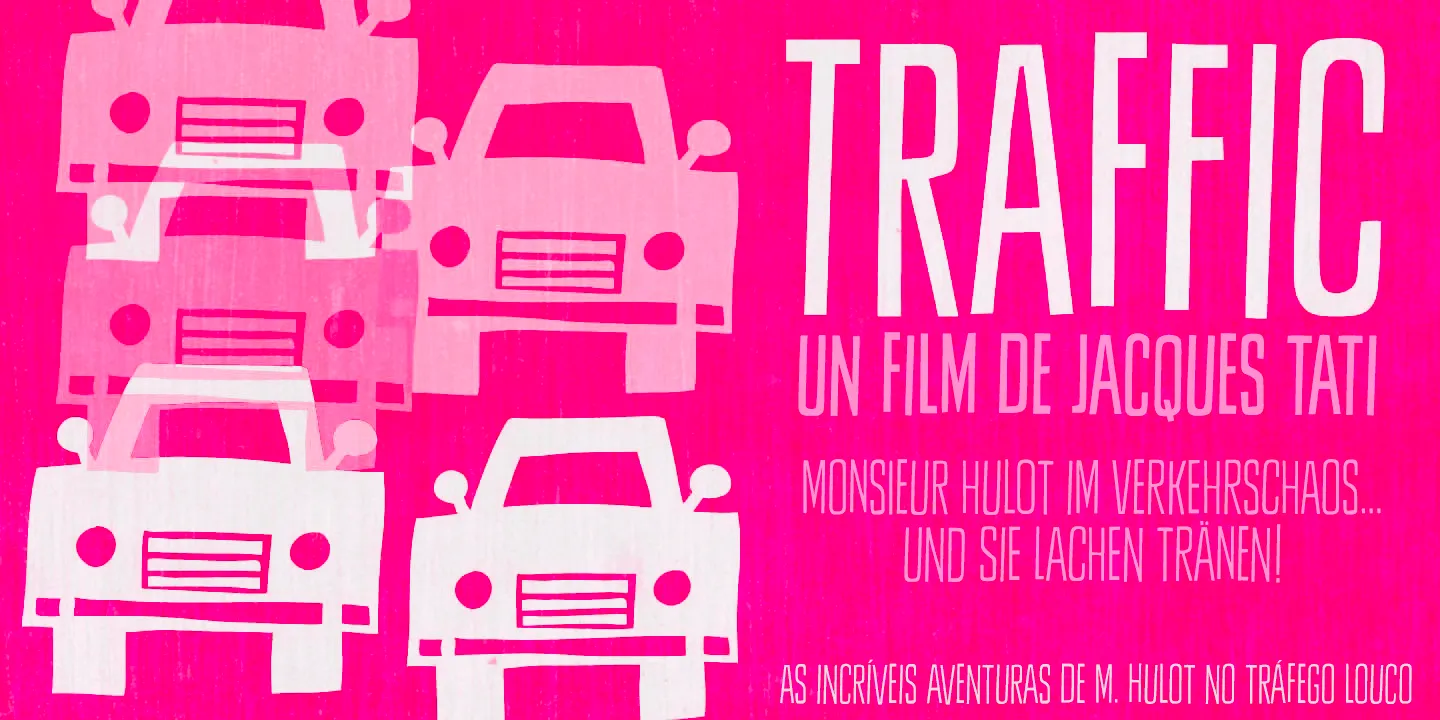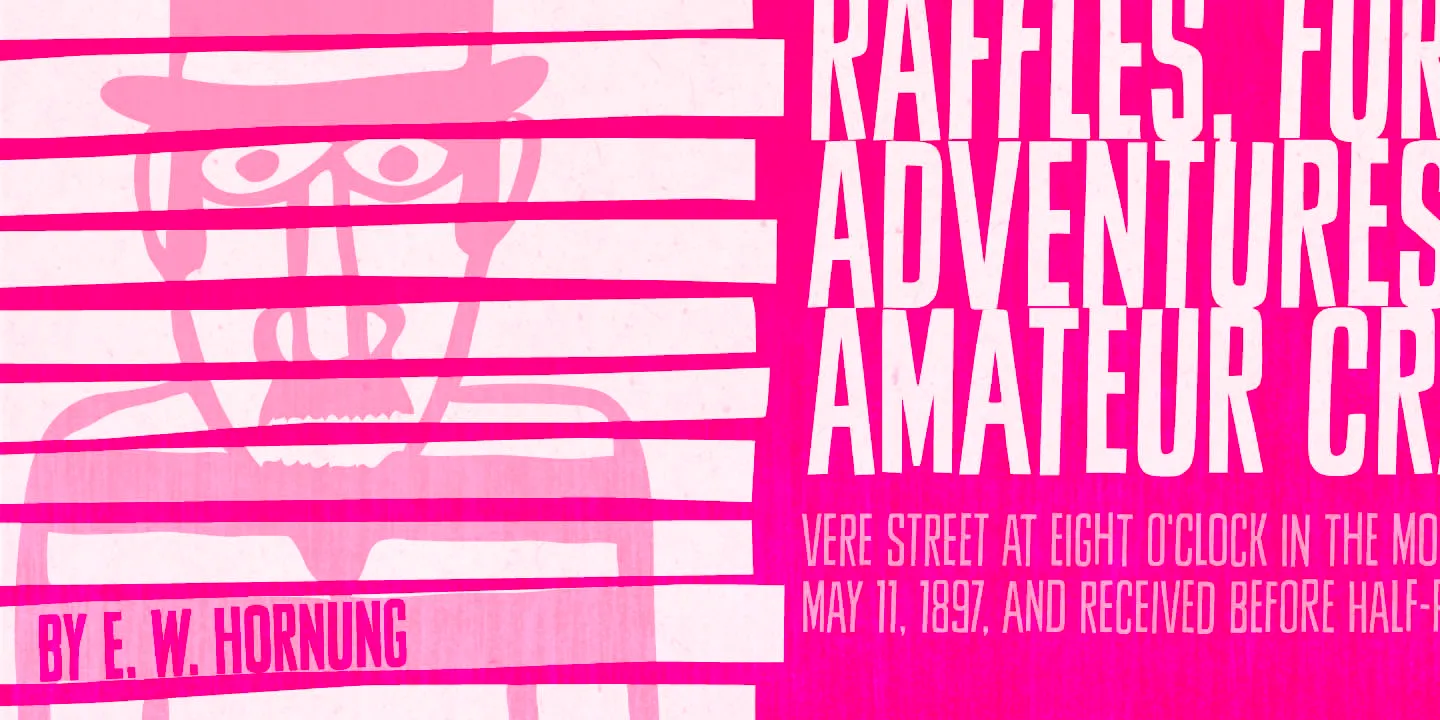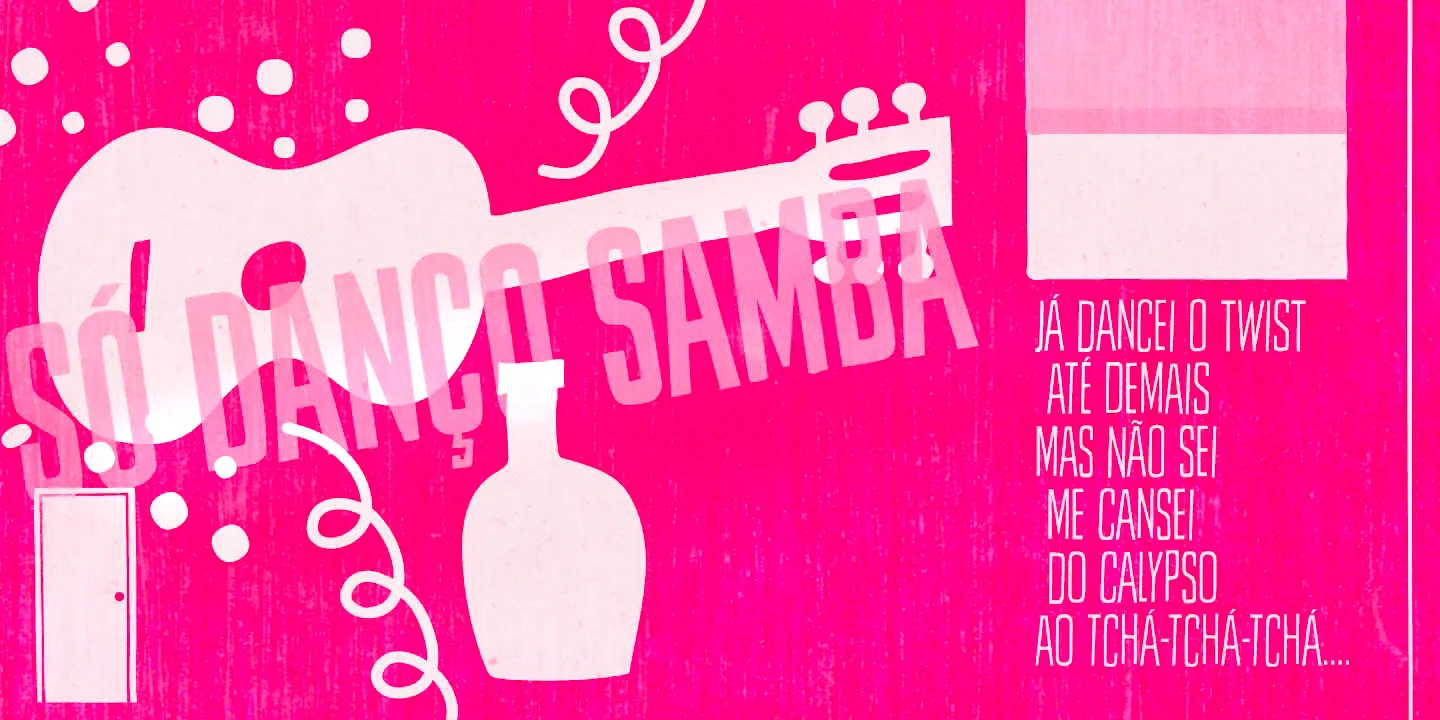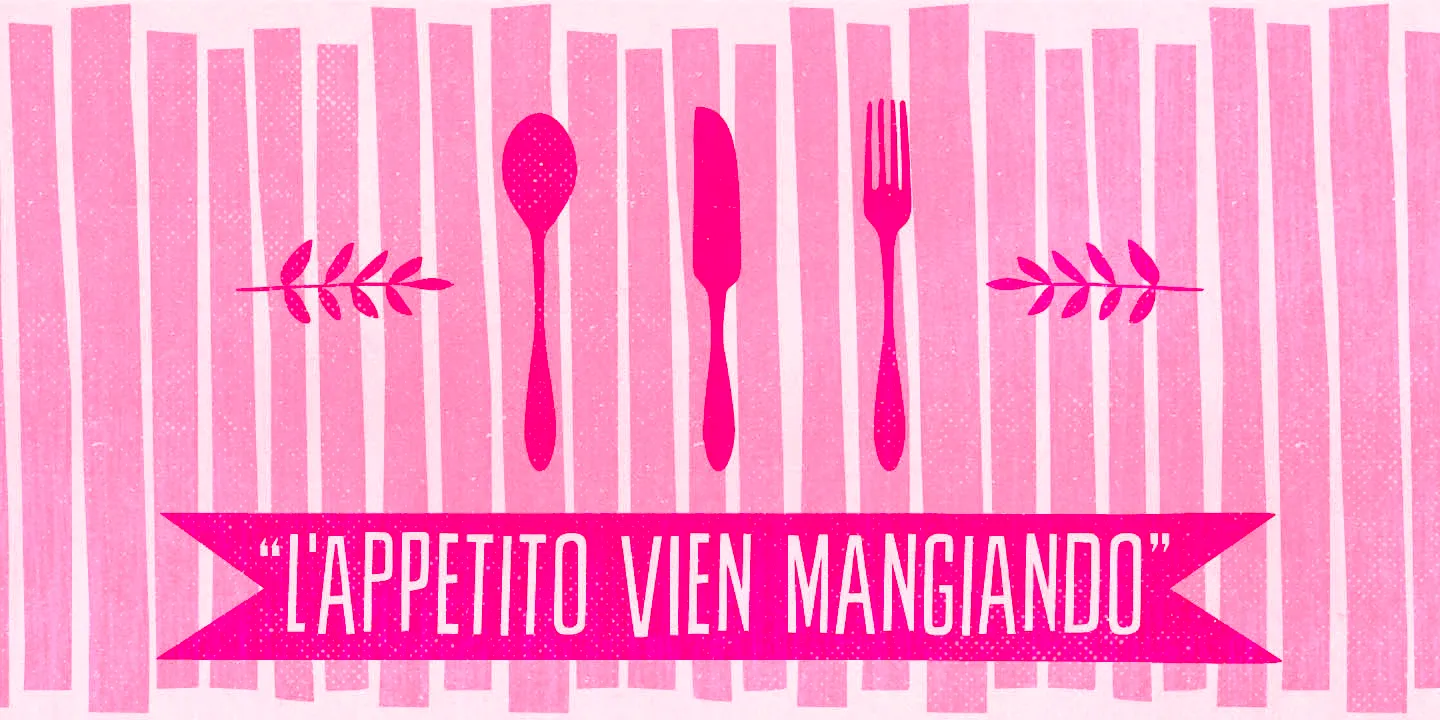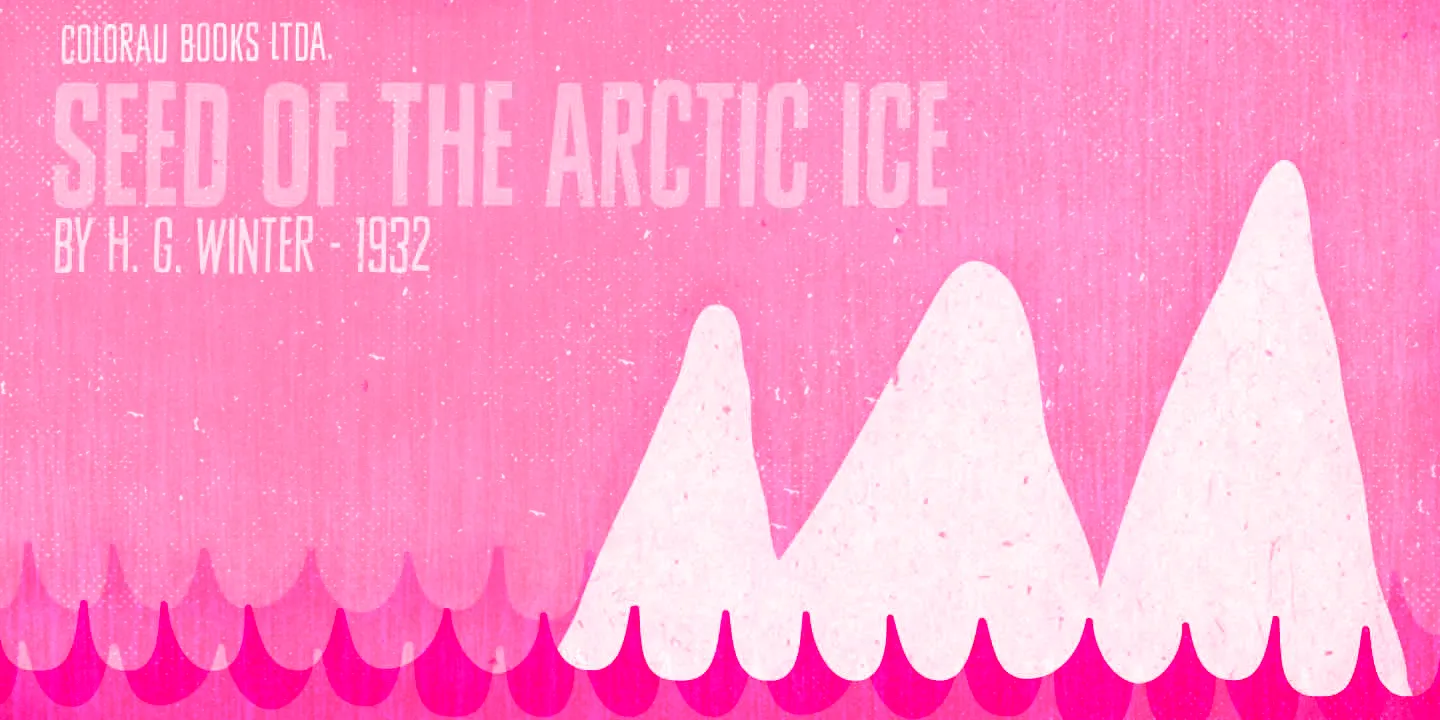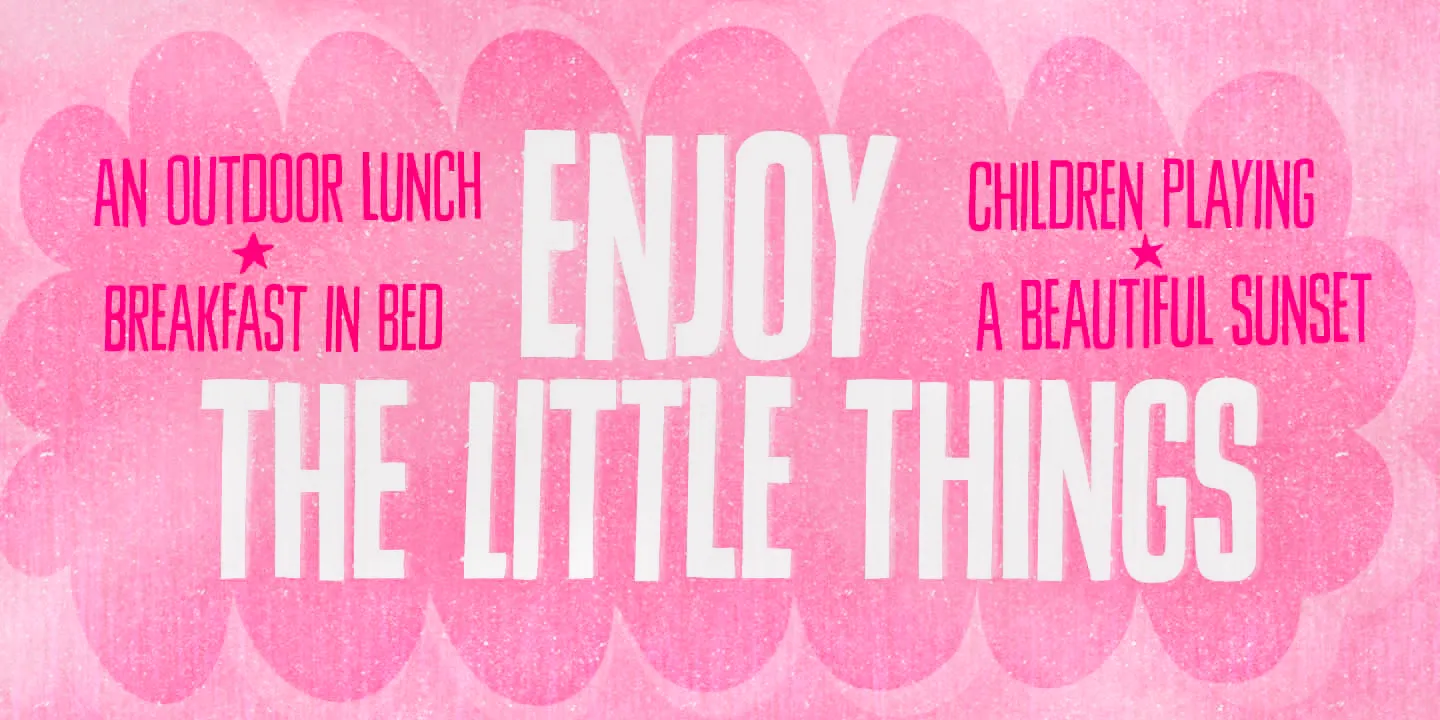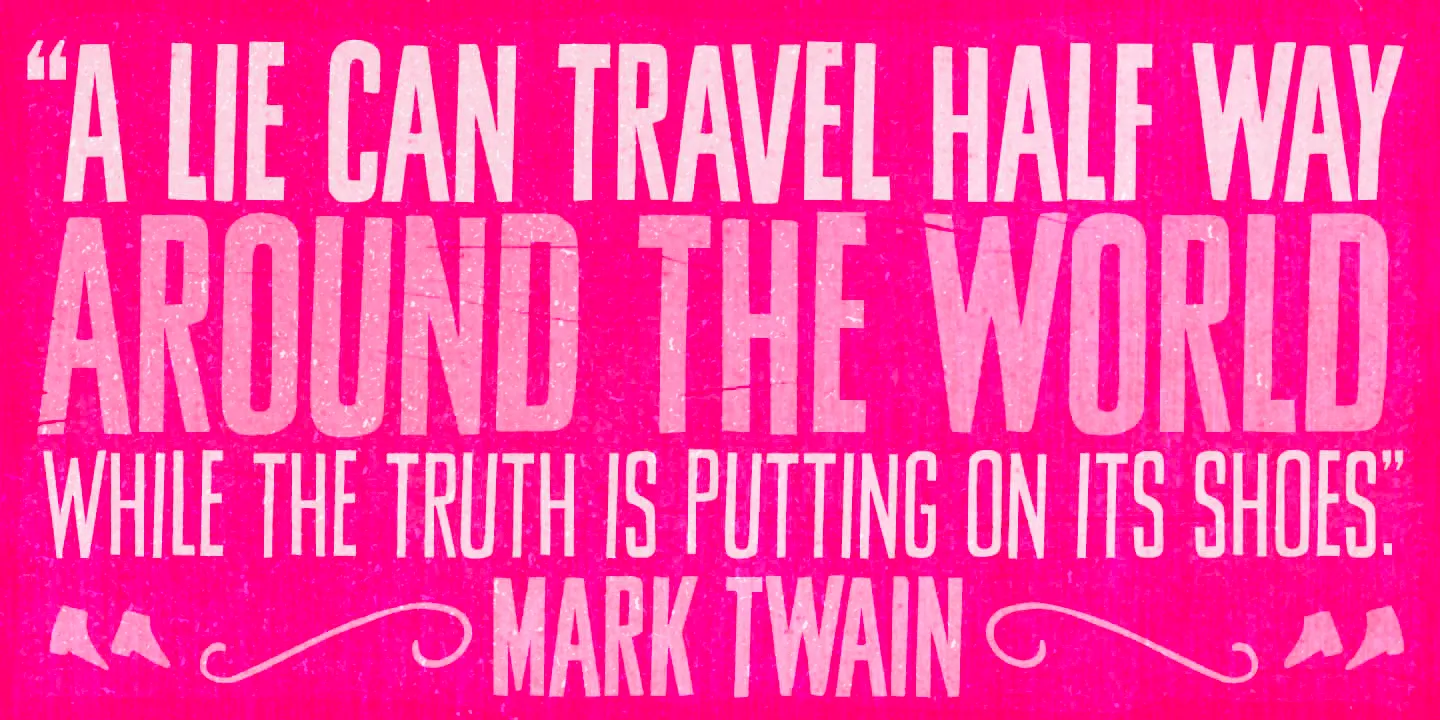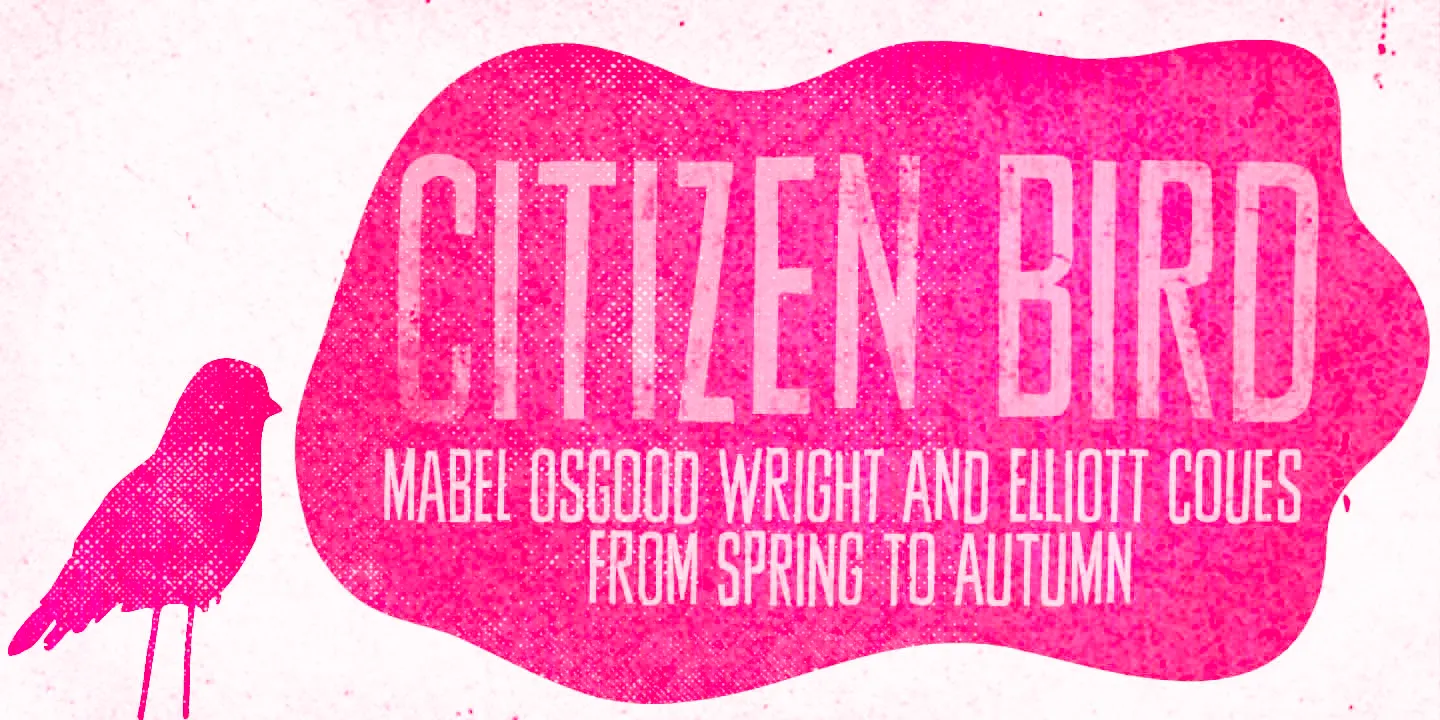
Sheldon
Sheldon is a quirkily handcrafted display sans serif. The condensed design — in three weights and a very cool picture font — draws inspiration from the beautiful and eloquent posters by the Polish graphic artist Marian Stachurski. Sprinkled with stylish oddities, it’s perfect for creating purposefully cool, uneven typography. Expressive and experimental, this family is the ideal choice for independent film posters, restaurant branding, food and beverage packaging, social media graphics, and T-shirts!